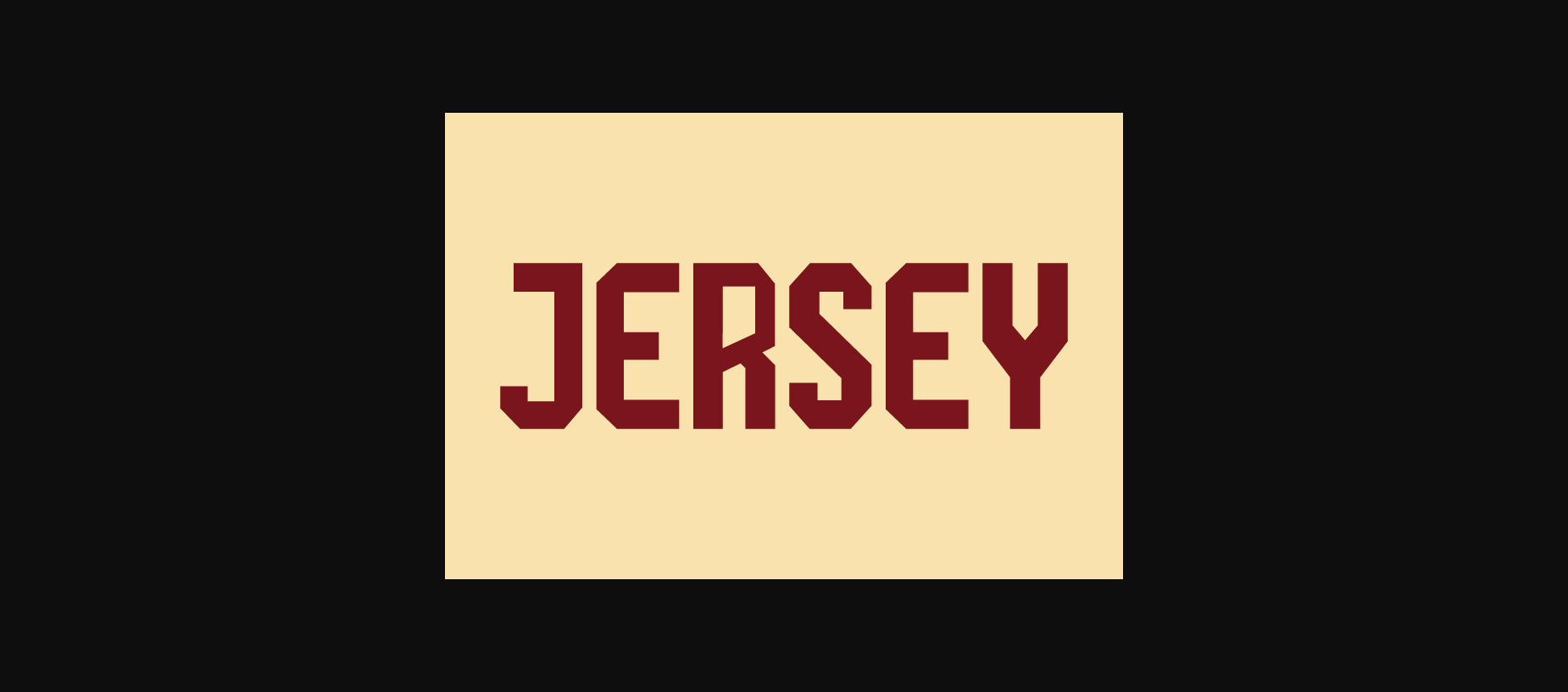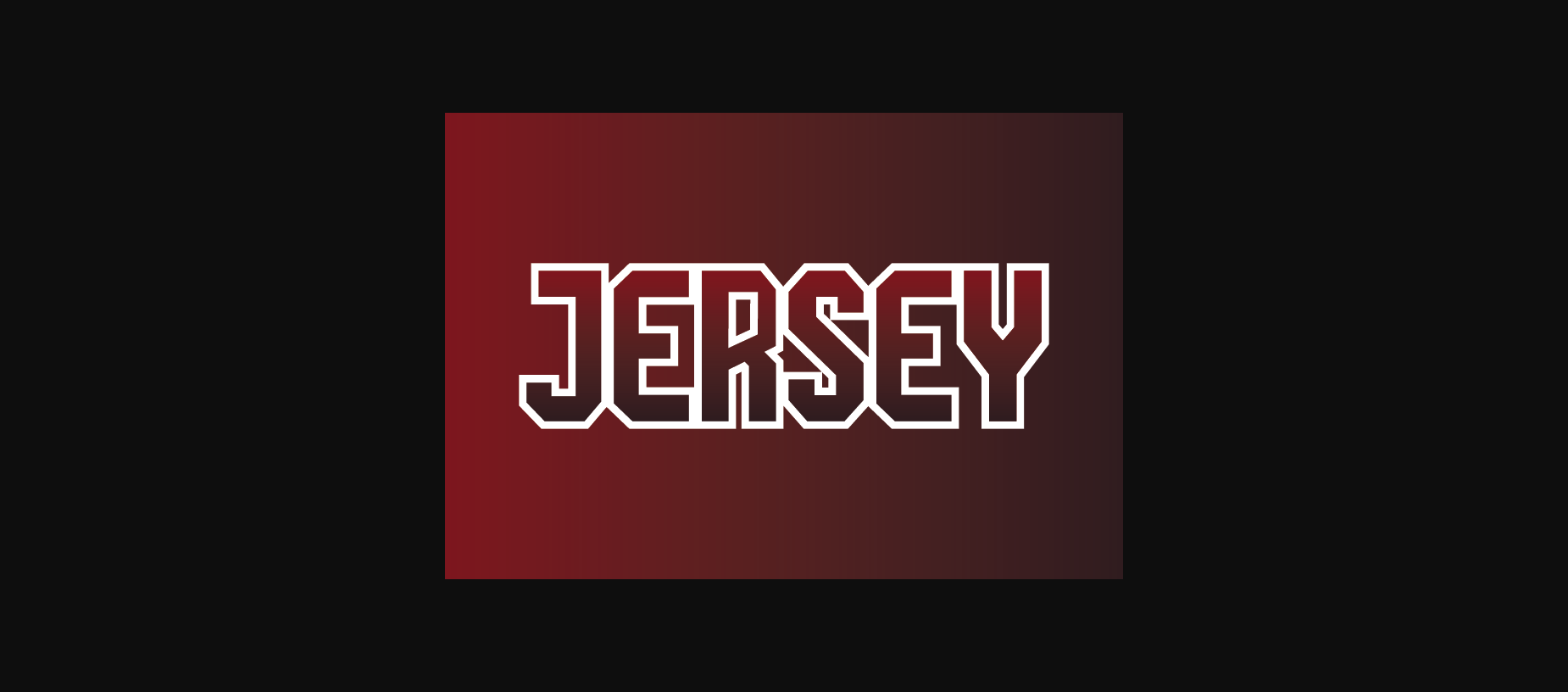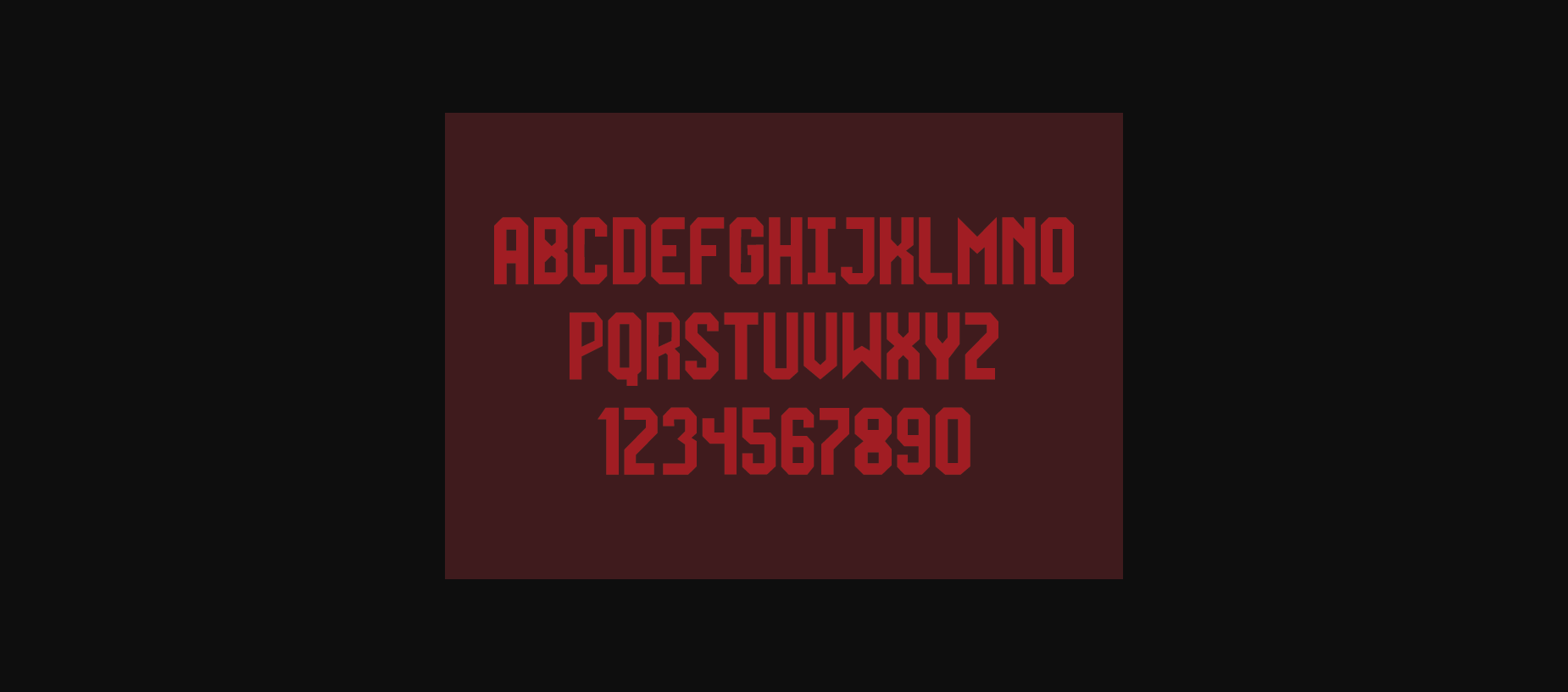
Jersey Font
About Jersey Font
Jersey font refers to a style of typeface specifically designed for sports jerseys, often characterized by bold, blocky letters with clean lines and sharp edges. This typeface is widely used in athletic apparel, particularly in team sports like basketball, football, soccer, and baseball. The purpose of the Jersey font is to provide high visibility and easy legibility from a distance, allowing fans, officials, and spectators to quickly identify players’ names and numbers on the field or court.